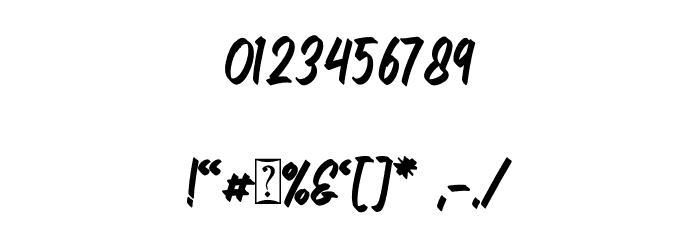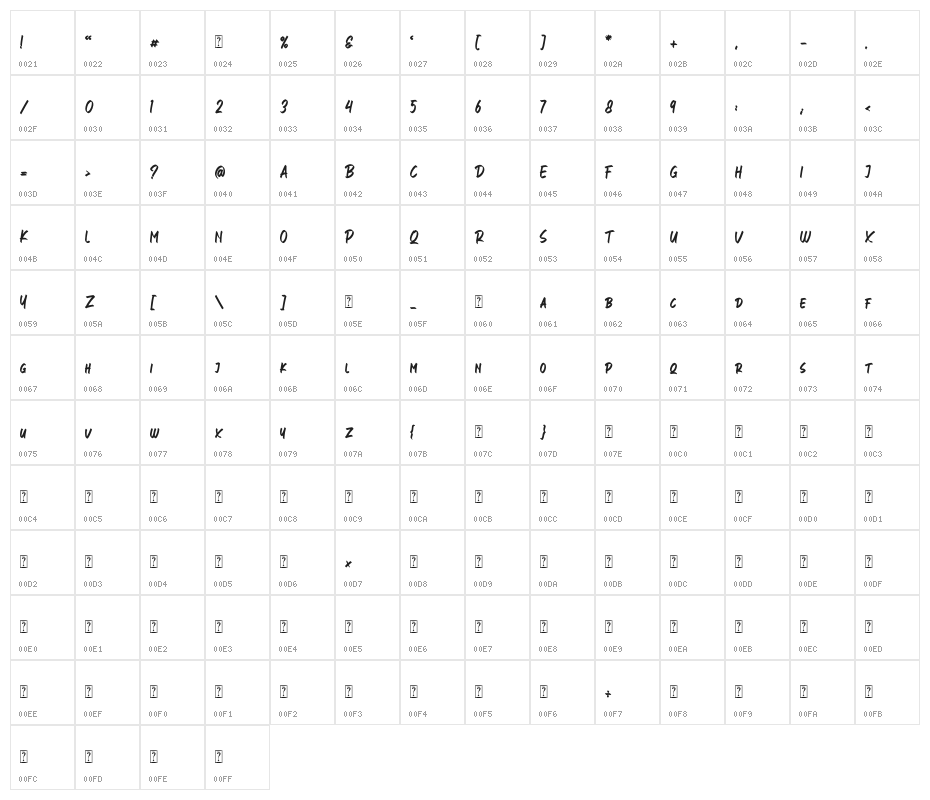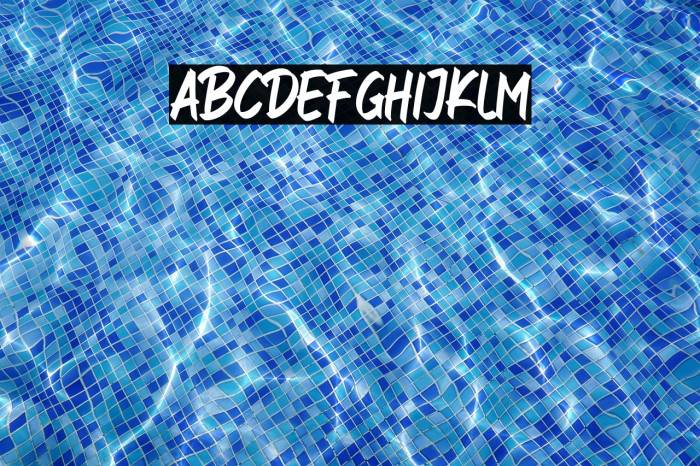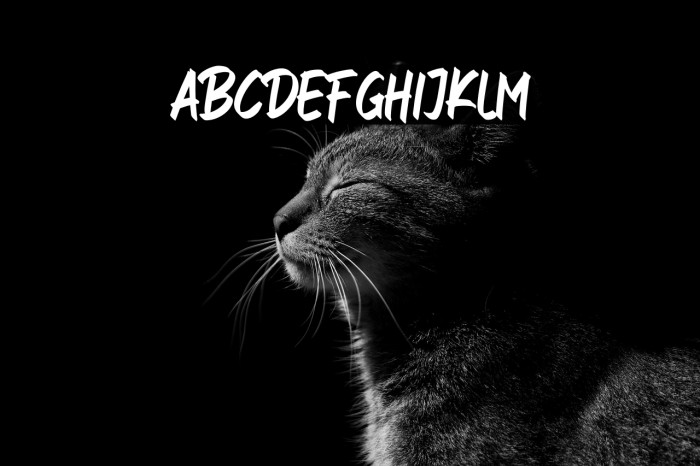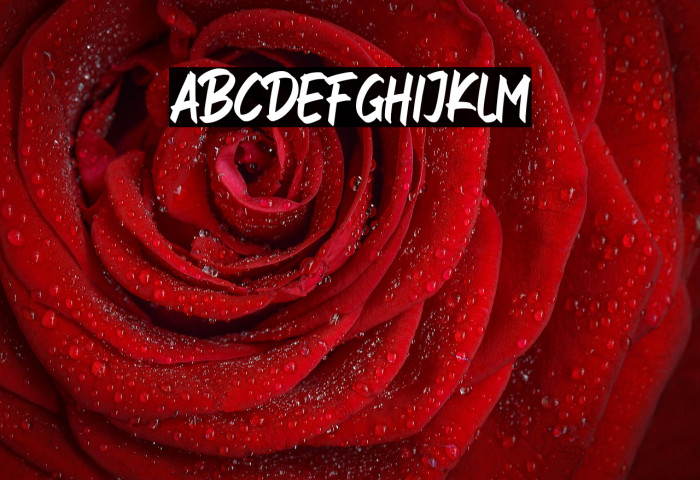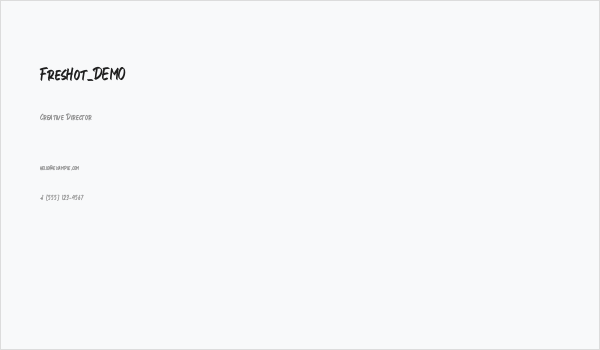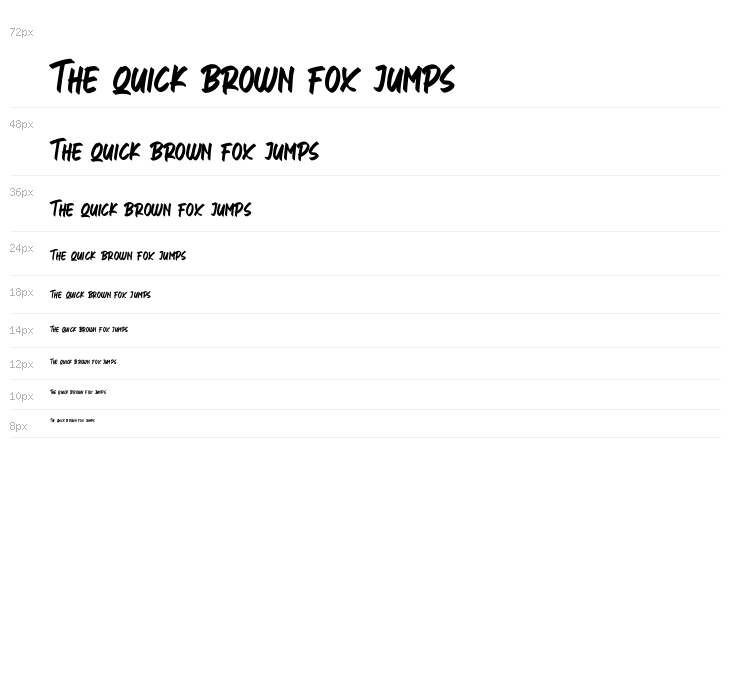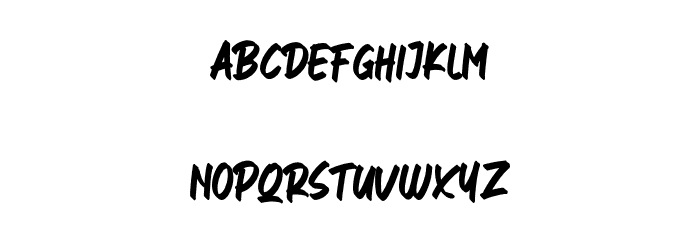
FresHot_DEMO Font
FresHot_DEMO Description
This font features a bold and energetic script style with a hand-drawn appearance. The letters are dynamic and slightly slanted, giving a sense of movement and fluidity. The uppercase and lowercase characters maintain a consistent style, with rounded edges and varying stroke widths that add to its lively character. The numbers and special characters are equally expressive, fitting seamlessly with the overall aesthetic. This font is ideal for projects that require a personal touch or a sense of spontaneity.
| Proposed Projects | Ideal for branding, posters, social media graphics, and any design needing a lively, personal touch. |